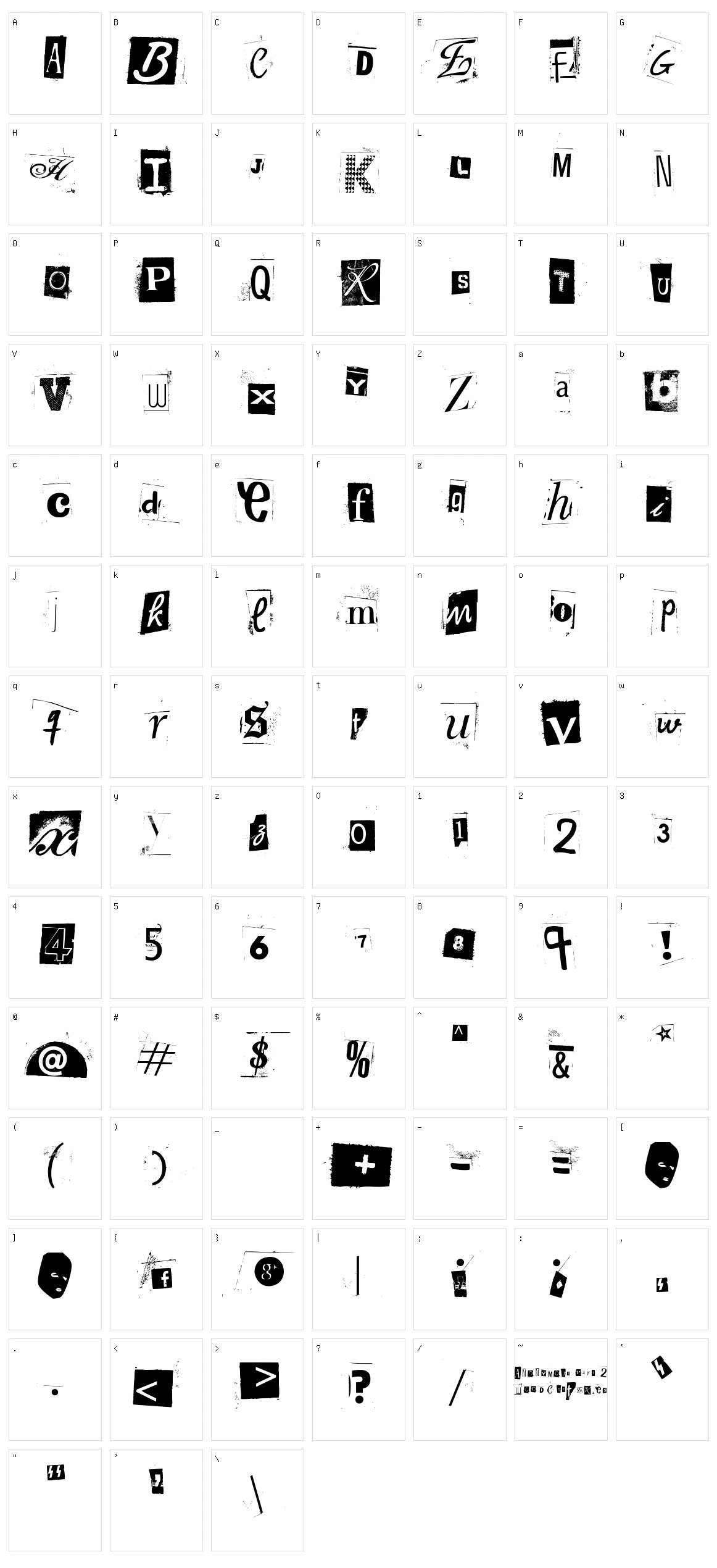
The free font Woodcutter Anonymous part 2 is carefully designed by Woodcutter, showcasing a thoughtful balance of creativity and usability and falls under the Distorted font style. When you download the ZIP file, it contains only 312.29 KB of font files, making it lightweight and quick to download. Please review the license details below to understand permitted usage and distribution rights. If license information is not available, we recommend using this font for personal projects only or contacting the author directly for commercial usage permissions.